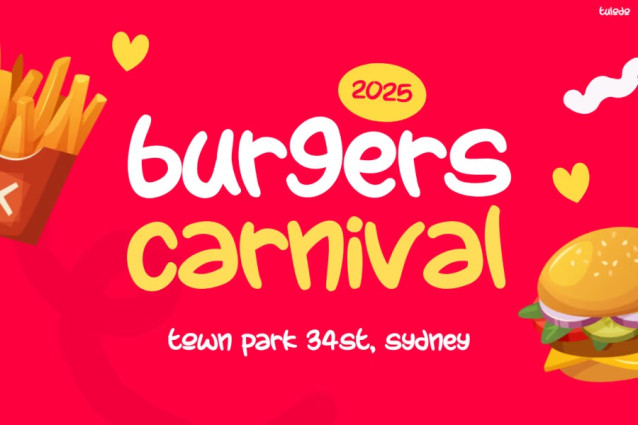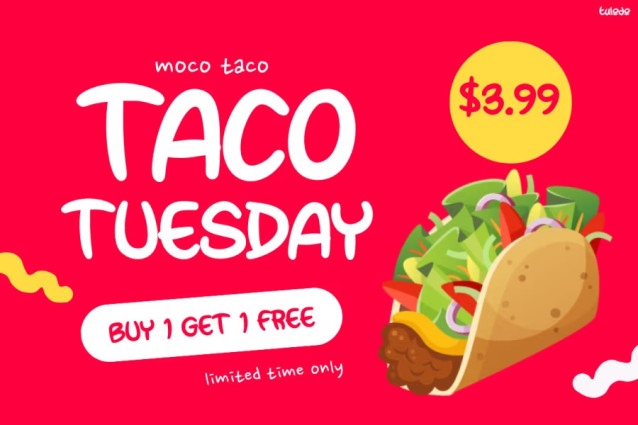
Tulodo Font
Tulodo Font brings a bright and cheerful personality that instantly makes any design feel fun and welcoming. Its rounded curves create a soft, friendly appearance, and the bouncy letter shapes add a lively rhythm. Because every stroke looks hand-drawn, the font carries a natural sense of innocence. Therefore, it becomes a great choice for child-focused themes. The bold, smooth lines also help the font stay readable, even when placed on busy layouts or colorful backgrounds.
Furthermore, TULODO has a unique visual appeal that makes every layout more engaging. It brings a cheerful spark to brand identities, school promotions, kids’ menus, cartoon titles, and storytelling projects. Even in small labels or large headlines, the font keeps its charming flow.
TULODO is a fun display typeface designed to bring joy and energy to your creative work. It feels lively, friendly, and expressive. Because the letters follow a smooth rhythm, the font works well in both print and digital formats. It is especially suitable for posters, kids’ menus, food packaging, banners, meal-deal ads, playful branding systems, comic-style designs, and educational content. In addition, the bold structure helps maintain clarity even at smaller sizes.
Bring a joyful spark to your projects with Kids Font TULODO. Its lively shapes, soft curves, and warm personality will make your designs stand out. Therefore, if you want a font that adds happiness, brightness, and fun, TULODO is the perfect choice.